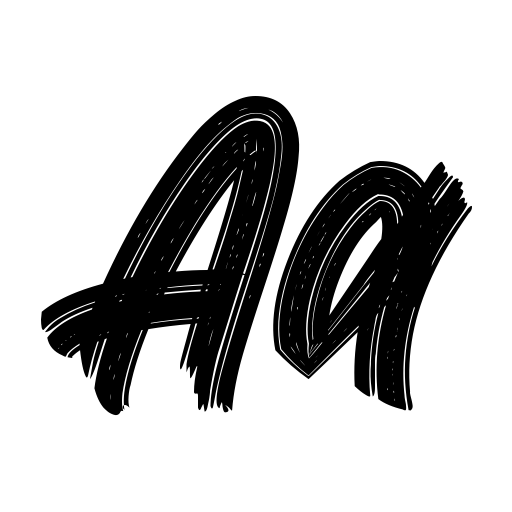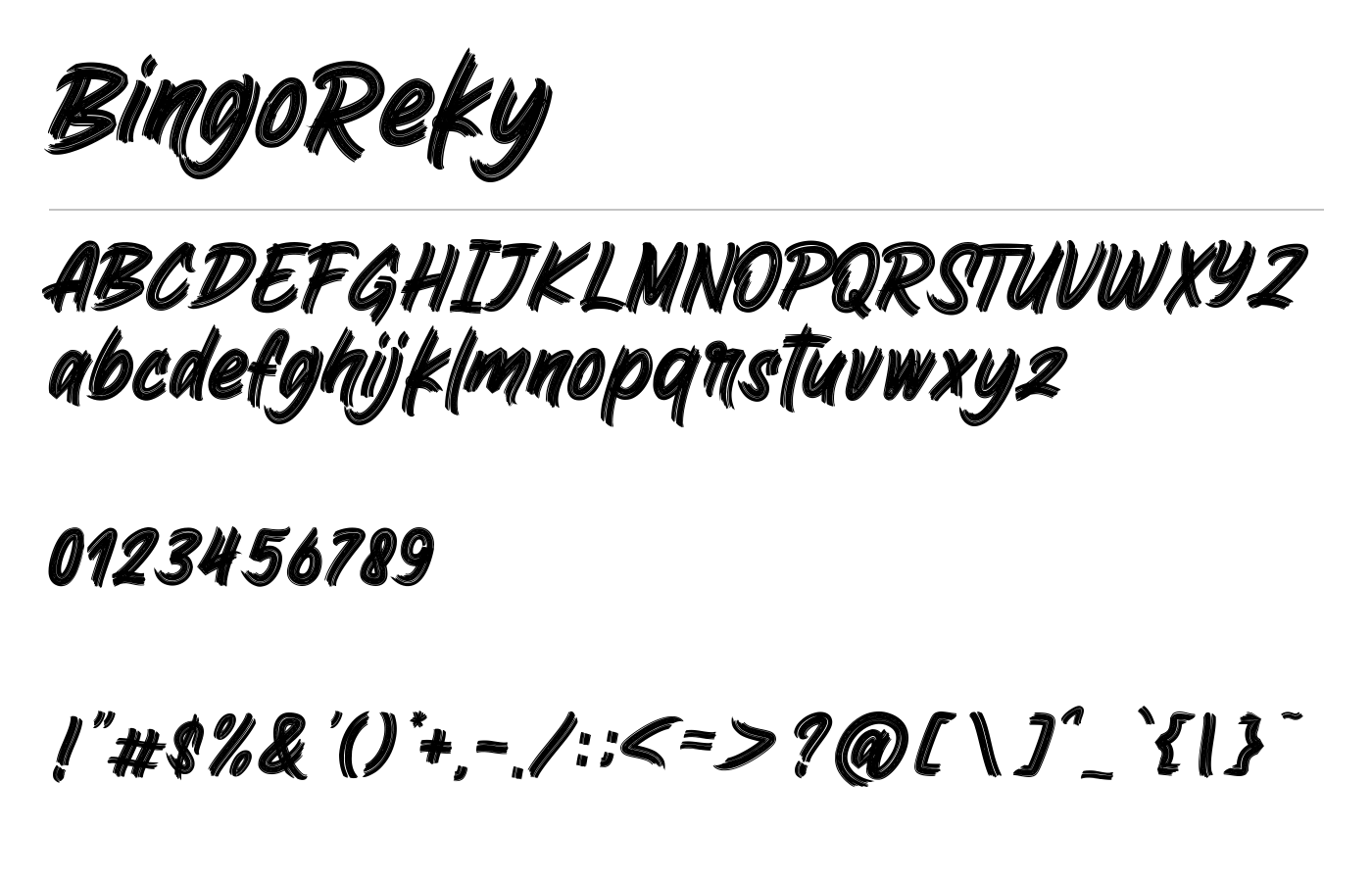
BingoReky is a bold, playful script font with a hand-painted brush style that brings energetic and informal charm. Its dynamic, slightly slanted letterforms and textured strokes add a lively, artistic feel, making it ideal for eye-catching headlines, creative branding, and fun packaging where personality and impact are key. This font is perfect for projects seeking a casual yet confident voice that stands out with personality.
BingoReky Font
| Font family | BingoReky Font |
| Designer | Hajid Hikmatiyar |